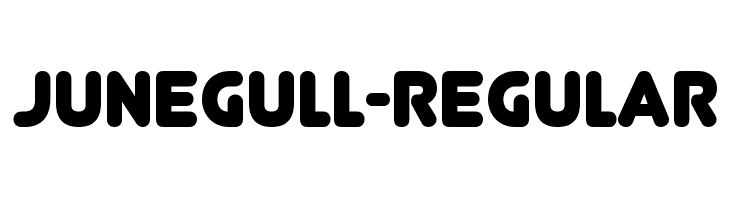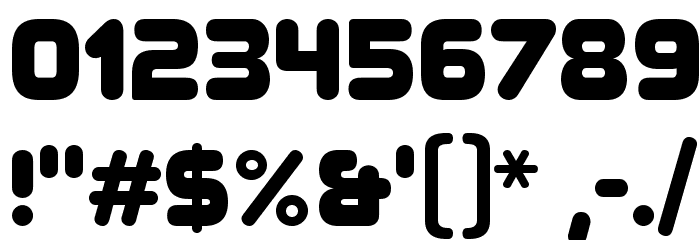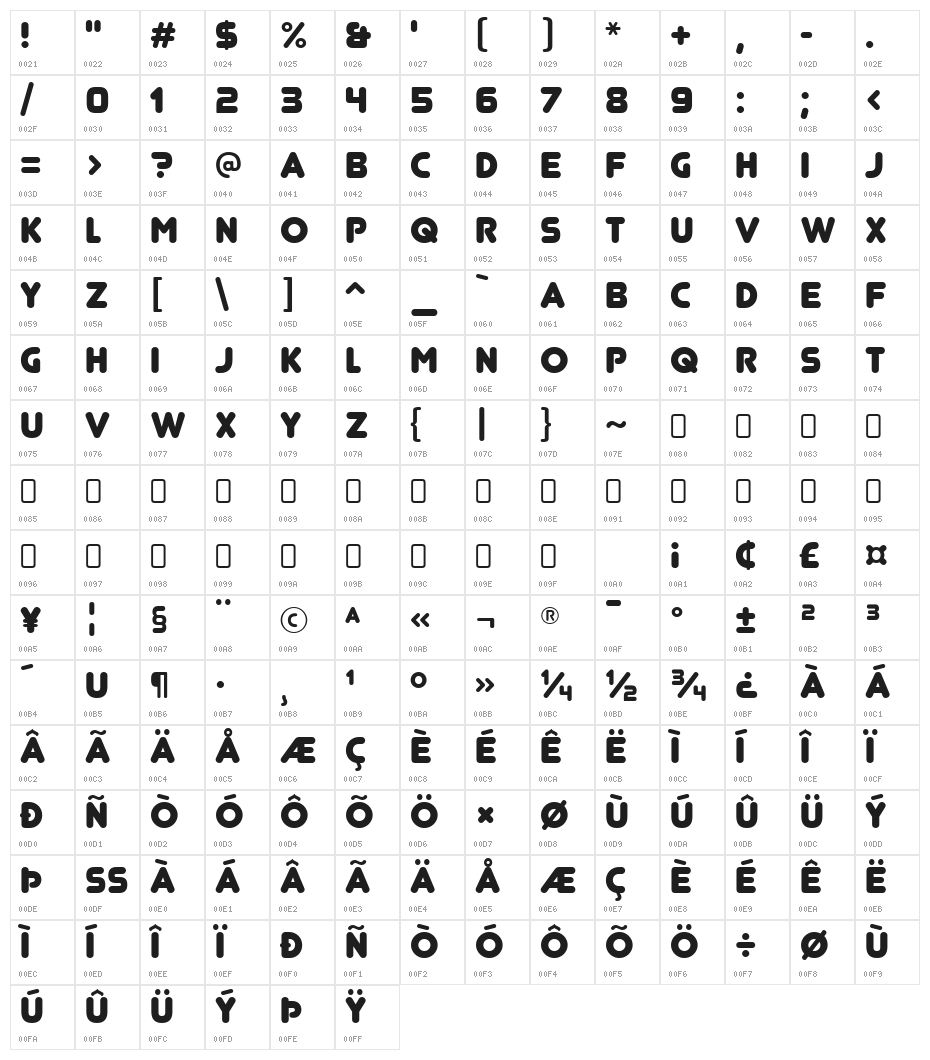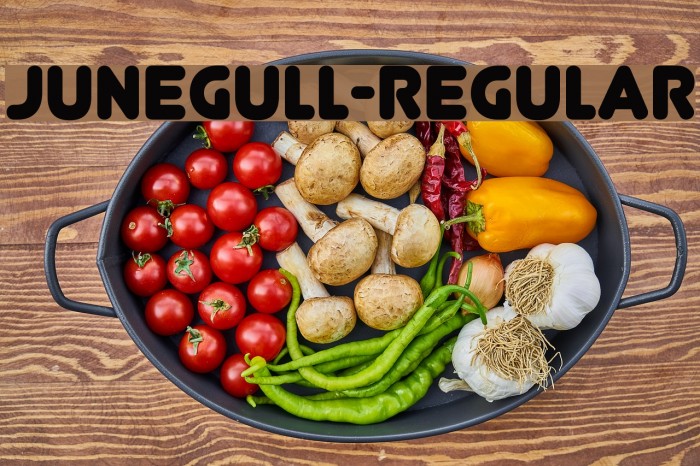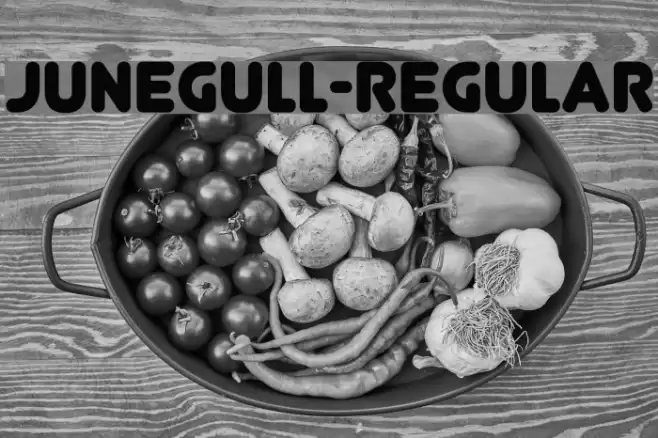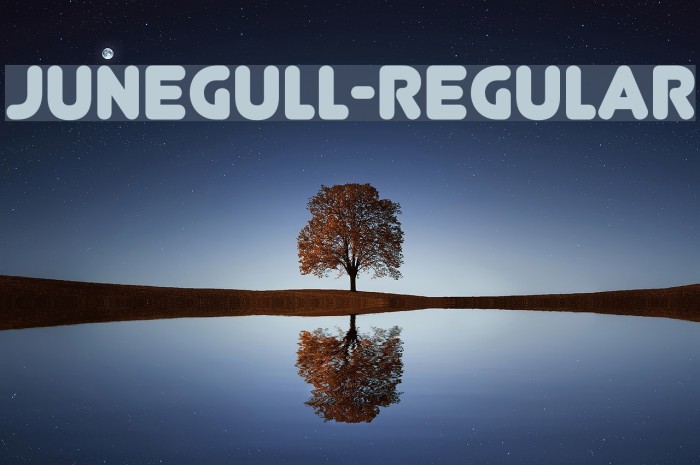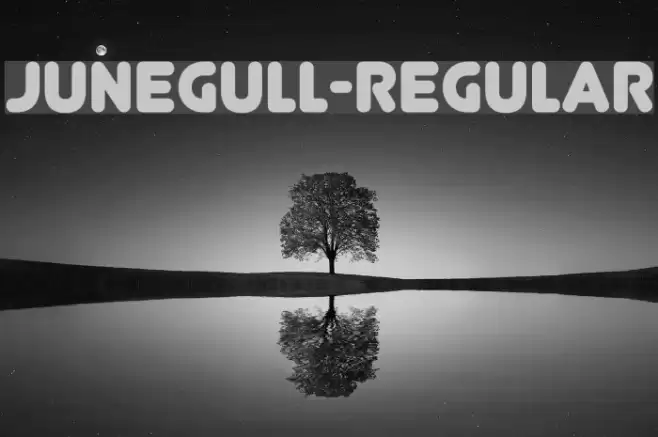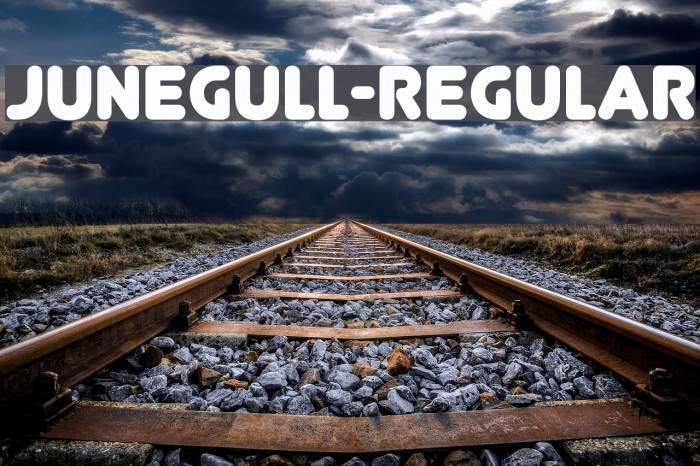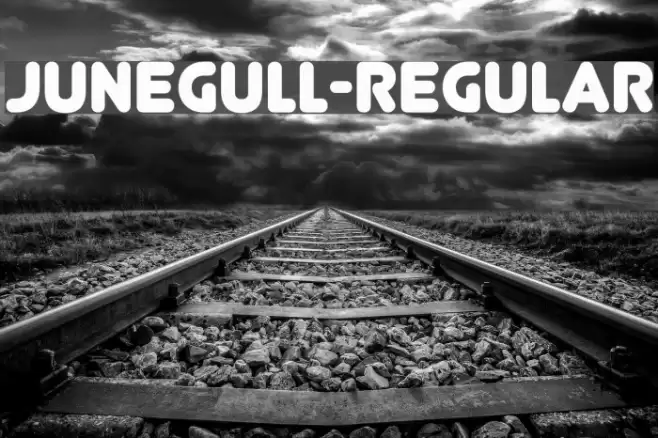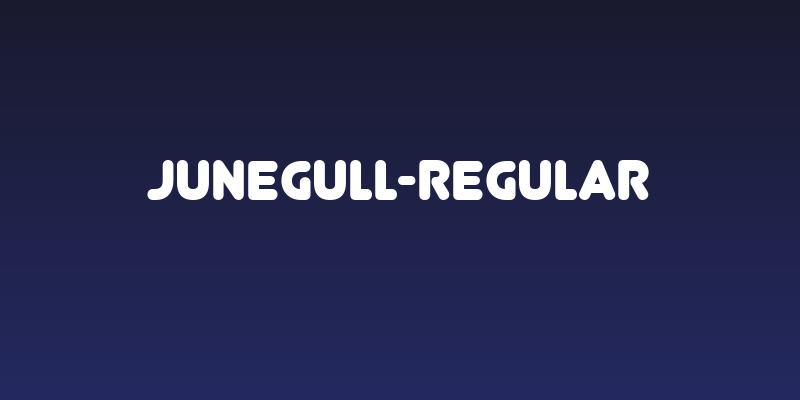
Junegull-Regular Font
Junegull-Regular Description
This font features a bold, rounded style with smooth curves and a modern aesthetic. The letters are evenly spaced, providing a clean and approachable look. Its thick strokes and uniform weight make it highly legible, even at smaller sizes. The rounded edges give it a friendly and informal appearance, suitable for a variety of design contexts. The numerals and special characters maintain the same rounded and bold characteristics, ensuring consistency across all elements. This font's playful yet professional style makes it versatile for both digital and print media.
| Proposed Projects | Ideal for branding, advertising, children's books, and digital media where a friendly and approachable tone is desired. |